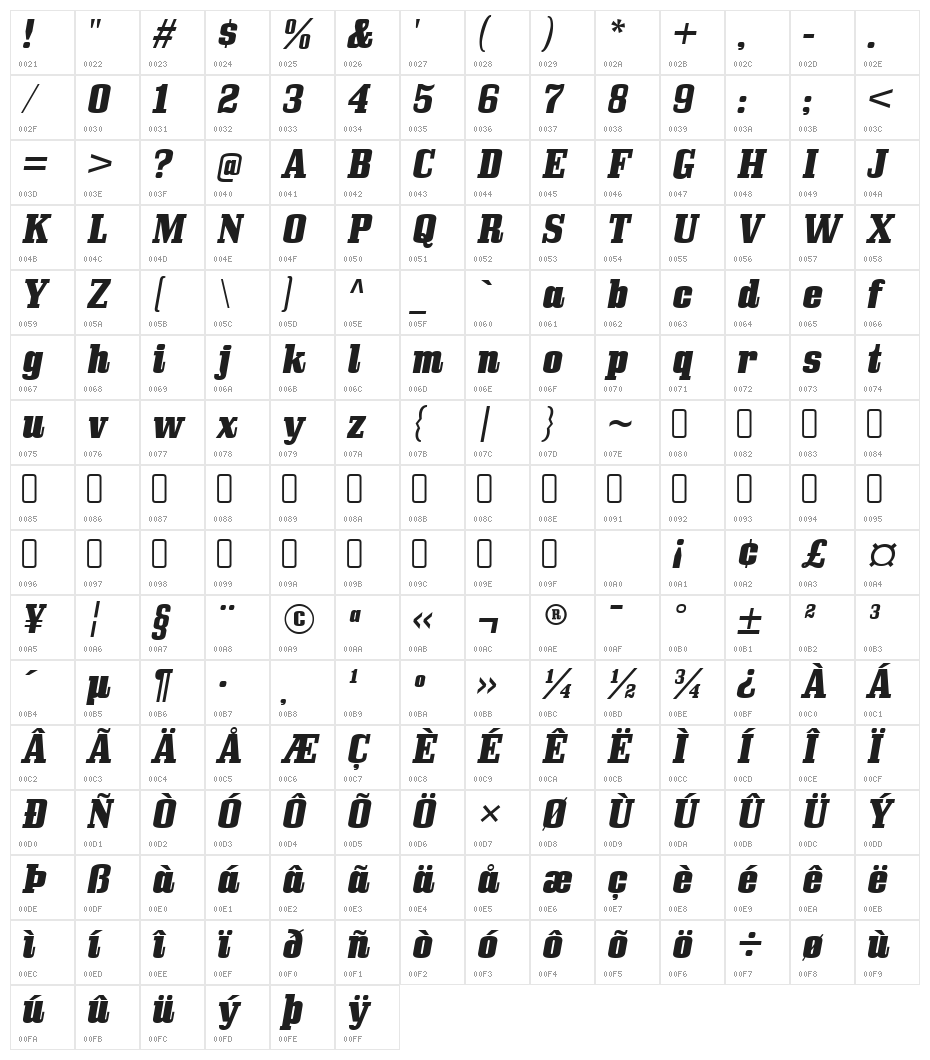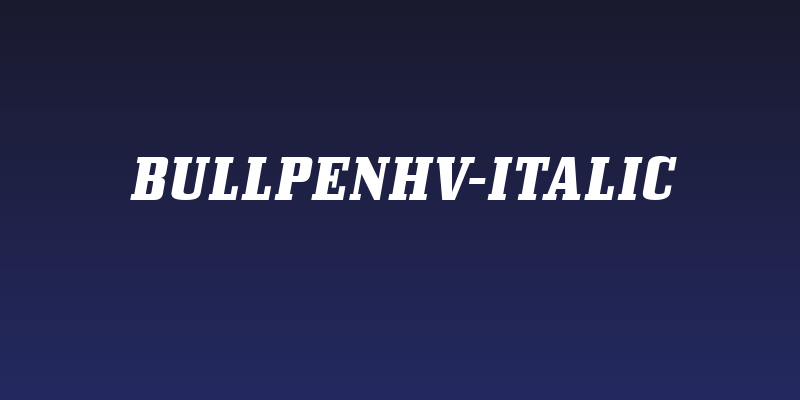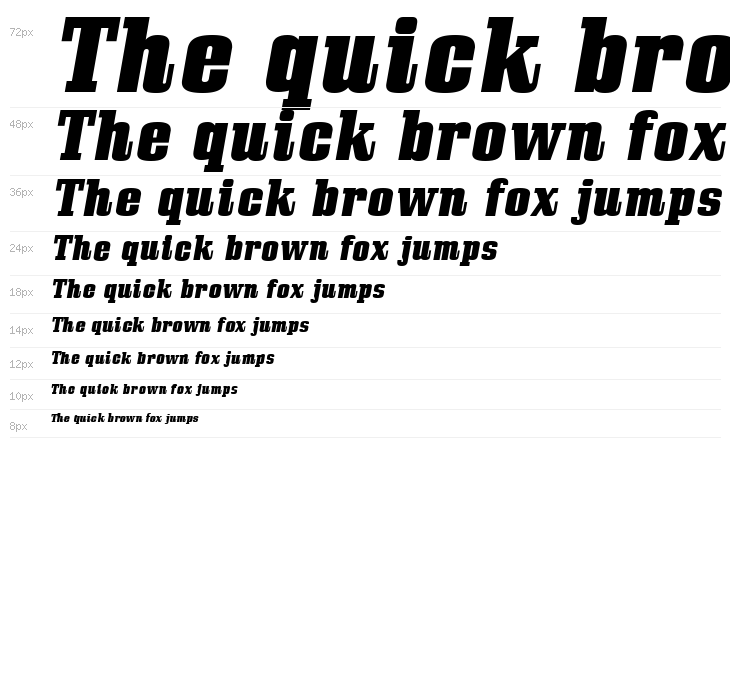
BullpenHv-Italic Font
BullpenHv-Italic Description
This font features a bold and dynamic style with a strong italic slant, giving it a sense of motion and energy. The characters are robust and impactful, making them ideal for attention-grabbing headlines. The uppercase letters are particularly striking, with a consistent weight and width that ensures readability even at smaller sizes. The lowercase letters maintain the same boldness, providing a cohesive look across different text cases. The numerals are clear and distinct, with a uniform thickness that matches the alphabetic characters. Special characters are well-defined, adding versatility to the font's use. Overall, this font exudes a modern and sporty vibe, perfect for projects that require a bold statement.
| Proposed Projects | Ideal for sports branding, dynamic headlines, posters, and advertising materials. |